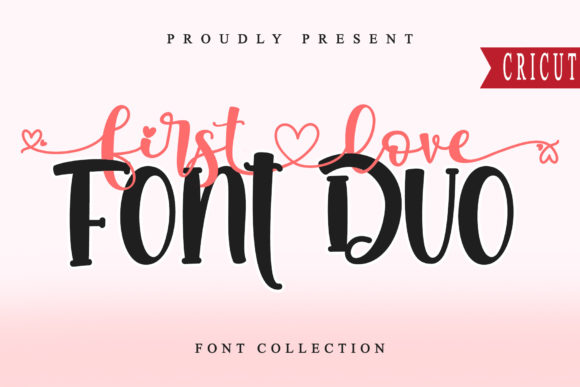
Get ready to fall head over heels with First Love FD Font, the script font that will ignite your passion for creativity! Step into a world of elegant charm and heartfelt expression as you explore this duo-styled handwritten wonder. With its effortless simplicity and enchanting flow, First Love FD Font is a true joy to use, promising to add a touch of magic to your every design.
Immerse yourself in the beauty of this font, meticulously crafted to evoke emotions and leave a lasting impression. Its graceful curves and delicate strokes dance across the page, capturing hearts and igniting imaginations. Experience the timeless allure of classic calligraphy blended with a modern twist, creating a versatile masterpiece that transcends time.
Open the floodgates of your creativity and let First Love FD Font guide you on an artistic journey like no other. Effortlessly blend this font with your diverse craft designs, unlocking endless possibilities. Whether you're a seasoned designer or just starting your creative adventure, First Love FD Font is your perfect companion, ready to elevate your projects to new heights.
With the convenience of PUA encoding, you'll have complete control over all the glyphs and swashes, making it effortless to add intricate details and flourishes to your designs. The font's extensive character set ensures compatibility with multiple languages, allowing you to spread your message across borders and cultures.